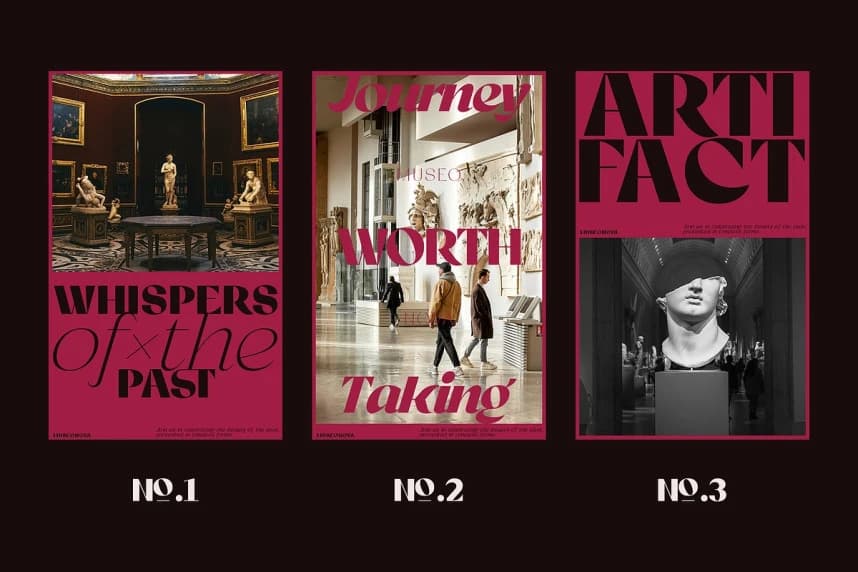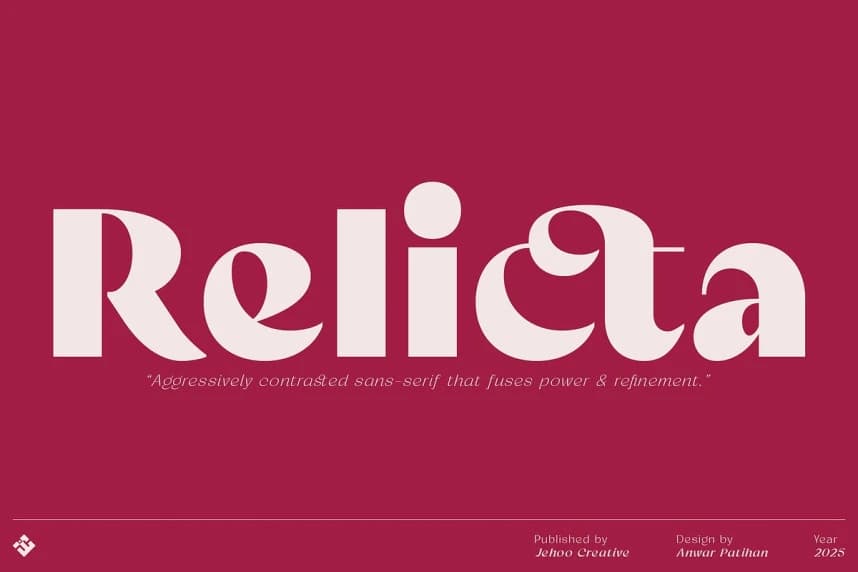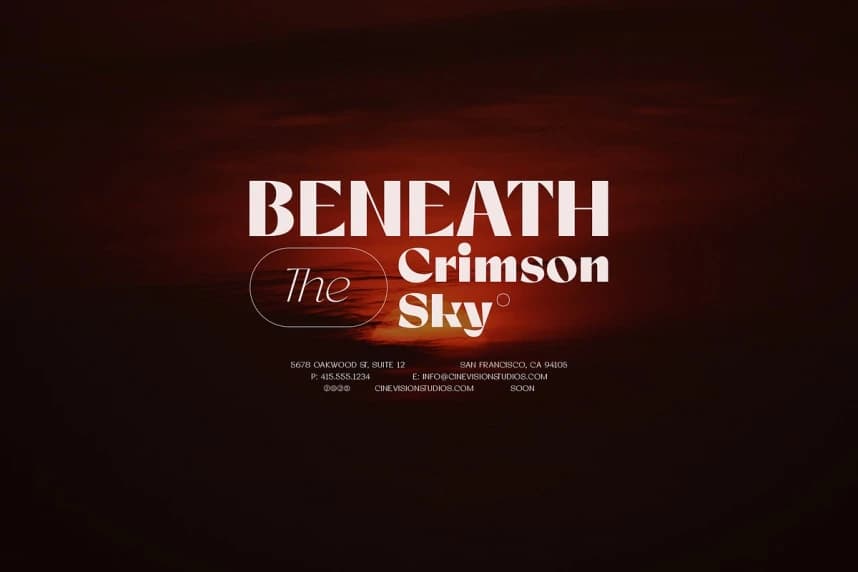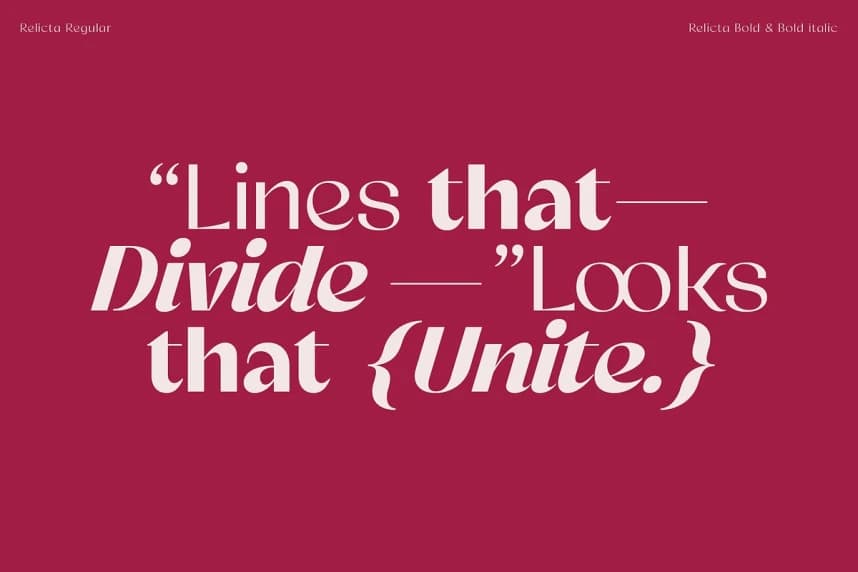
Relicta Font is a modern sans-serif typeface defined by high contrast and commanding elegance. Its dramatic interplay of thick, forceful verticals and fine, graceful horizontals creates a striking rhythm—powerful yet captivating.